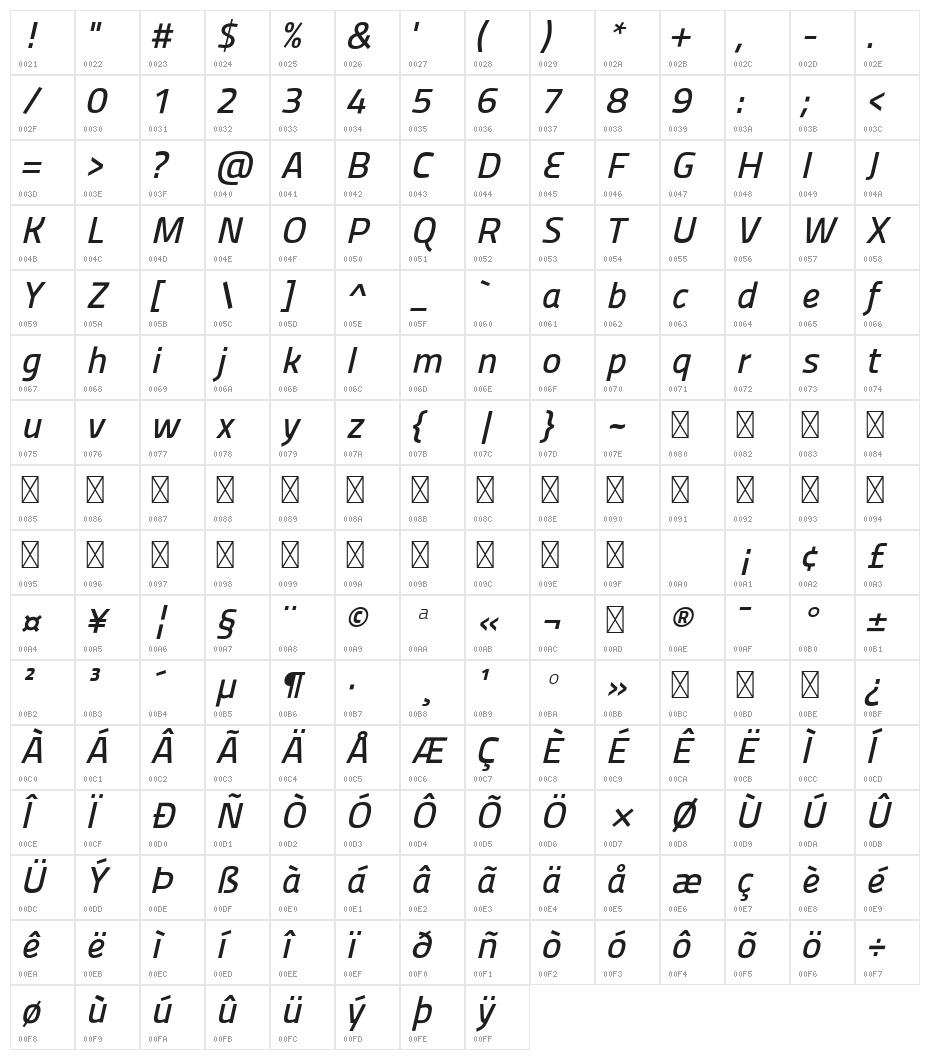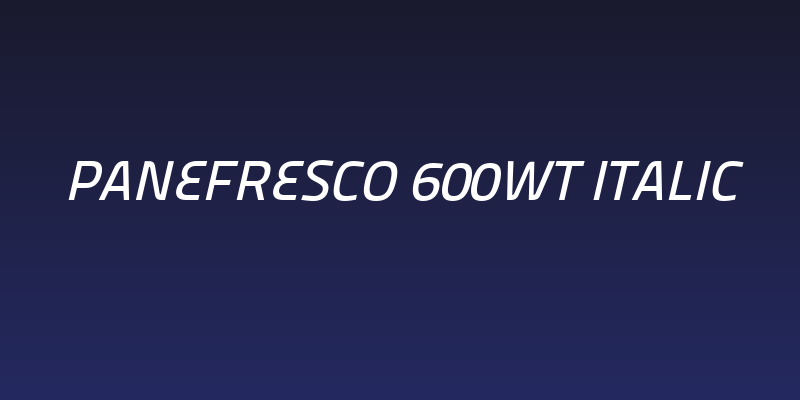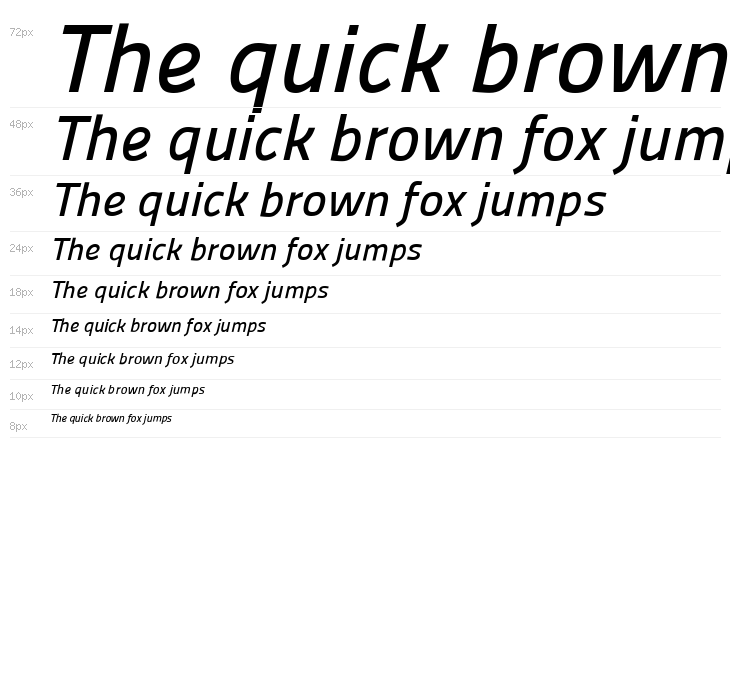
Panefresco 600wt Italic Font
Panefresco 600wt Italic Description
This font features a sleek, modern design with a distinct italic slant, giving it a dynamic and forward-moving appearance. The characters are crafted with a uniform stroke width, contributing to a clean and professional look. The uppercase letters are bold and assertive, while the lowercase letters maintain a consistent flow, enhancing readability. The numerals are well-proportioned and align perfectly with the overall style, making them suitable for both text and numerical data. Special characters are designed to complement the alphabet, ensuring a cohesive visual experience across all text elements.
Proposed ProjectsIdeal for branding, advertising, and editorial design projects where a modern and professional look is desired.